In a digital world dominated by sleek and polished designs, sometimes all you need is a touch of personal charm to make your creations truly stand out. Enter Canva script fonts – the perfect way to add a handwritten touch to your projects and infuse them with warmth and personality. Whether you’re looking to elevate your social media graphics, spice up your presentations, or simply add a personal flair to your designs, Canva’s collection of script fonts has got you covered. Let’s explore how these whimsical and elegant fonts can breathe life into your creations and set them apart from the rest.
Choosing the Best Canva Script Fonts for Your Project
When it comes to selecting the perfect Canva script font for your project, there are several factors to consider. First and foremost, you should think about the overall vibe you want to portray. Are you going for a whimsical and playful look, or do you prefer a more elegant and sophisticated style? Once you have a clear vision in mind, you can start browsing through Canva’s extensive collection of script fonts to find the one that best suits your project.
Another important aspect to keep in mind when choosing a script font is readability. While cursive and calligraphy-style fonts can add a touch of elegance to your design, they may not always be the most practical choice for longer blocks of text. Make sure to test out different fonts at various sizes to ensure that your message remains clear and easy to read. And don’t be afraid to mix and match different script fonts to create a unique and visually appealing design for your project.
Adding a Unique Flair with Handwritten Styles
Incorporating handwritten styles into your designs can add a personalized touch that sets them apart from the rest. Whether you’re creating invitations, logos, or social media graphics, the unique flair of hand lettering can elevate your work and make it truly one-of-a-kind.
One way to add a handwritten style is to experiment with different fonts that mimic handwriting. Look for fonts with natural strokes and imperfections that give the appearance of hand-written letters. Another option is to try your hand at actual calligraphy or brush lettering. With practice, you can develop your own unique style that adds a personal touch to your designs. Experiment with varying letter sizes, weights, and flourishes to create a truly individual look.
Customizing Your Designs with Personal Touches
Adding personal touches to your designs is a fantastic way to make them truly unique and special. One way to customize your designs is by incorporating elements that hold sentimental value to you, such as a favorite quote, a meaningful symbol, or a cherished photograph. By infusing your designs with these personal touches, you are not only adding a layer of authenticity but also creating a connection between yourself and the artwork.
Another way to customize your designs is by experimenting with different colors, textures, and patterns that resonate with your individual style and taste. Consider incorporating your favorite color palette or trying out unconventional combinations to create a design that reflects your personality. Don’t be afraid to mix and match different elements to make your designs stand out and truly represent who you are.
Exploring the Versatility of Canva Script Fonts
Script fonts in Canva are a versatile and dynamic tool that can add a touch of elegance and personality to your designs. From formal invitations to whimsical social media posts, script fonts can truly enhance the visual impact of your project. With Canva’s wide selection of script fonts, there is a font to suit any style or mood you are aiming for.
One of the key benefits of using script fonts in Canva is the ability to customize them to fit your unique vision. Whether you want to adjust the size, color, or spacing of the font, Canva provides you with the tools to make your text truly stand out. Additionally, pairing script fonts with other font styles can create a visually dynamic composition that captures the attention of your audience. With Canva script fonts, the possibilities are endless for creating stunning designs that make a lasting impression.
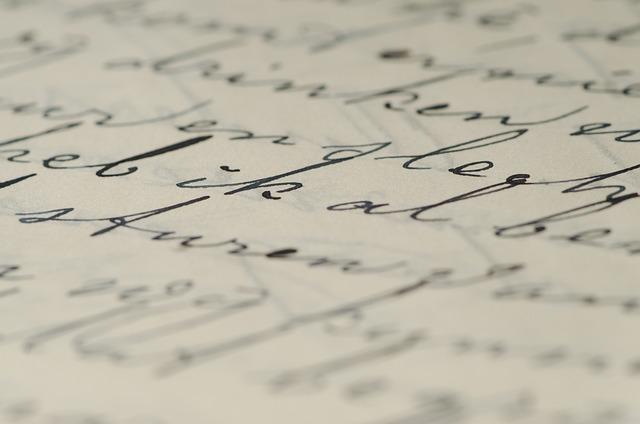
Tips for Incorporating Handwritten Styles into Your Designs
When aiming to incorporate handwritten styles into your designs, it is essential to choose the right tools and techniques to achieve an authentic look. One effective method is to scan actual handwritten text and incorporate it into your design digitally. This way, you can maintain the natural variation and imperfections that make handwritten styles unique. Experiment with different handwriting styles, such as cursive, print, or even calligraphy, to find the one that best suits your design aesthetic.
A: Canva script fonts work well for a variety of design projects, such as wedding invitations, social media graphics, and branding materials.
Q: How can I best utilize Canva script fonts in my designs?
A: To make the most of Canva script fonts, consider pairing them with complementary fonts, using them as accents or headers, and experimenting with different styles to create a cohesive look.
To Conclude
In conclusion, Canva’s script fonts offer an easy way to add a personal touch to your designs with handwritten styles that stand out. Try it today!